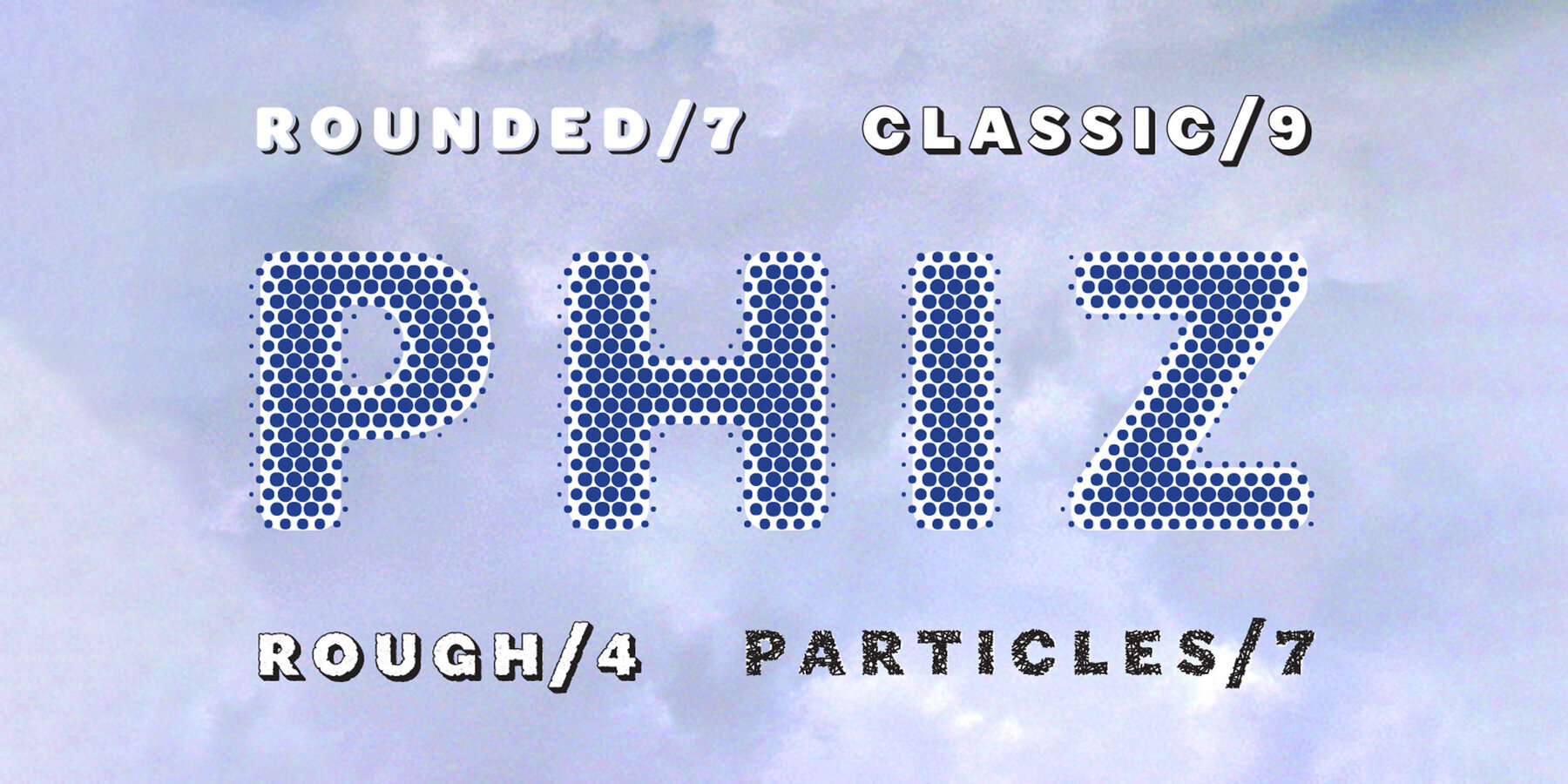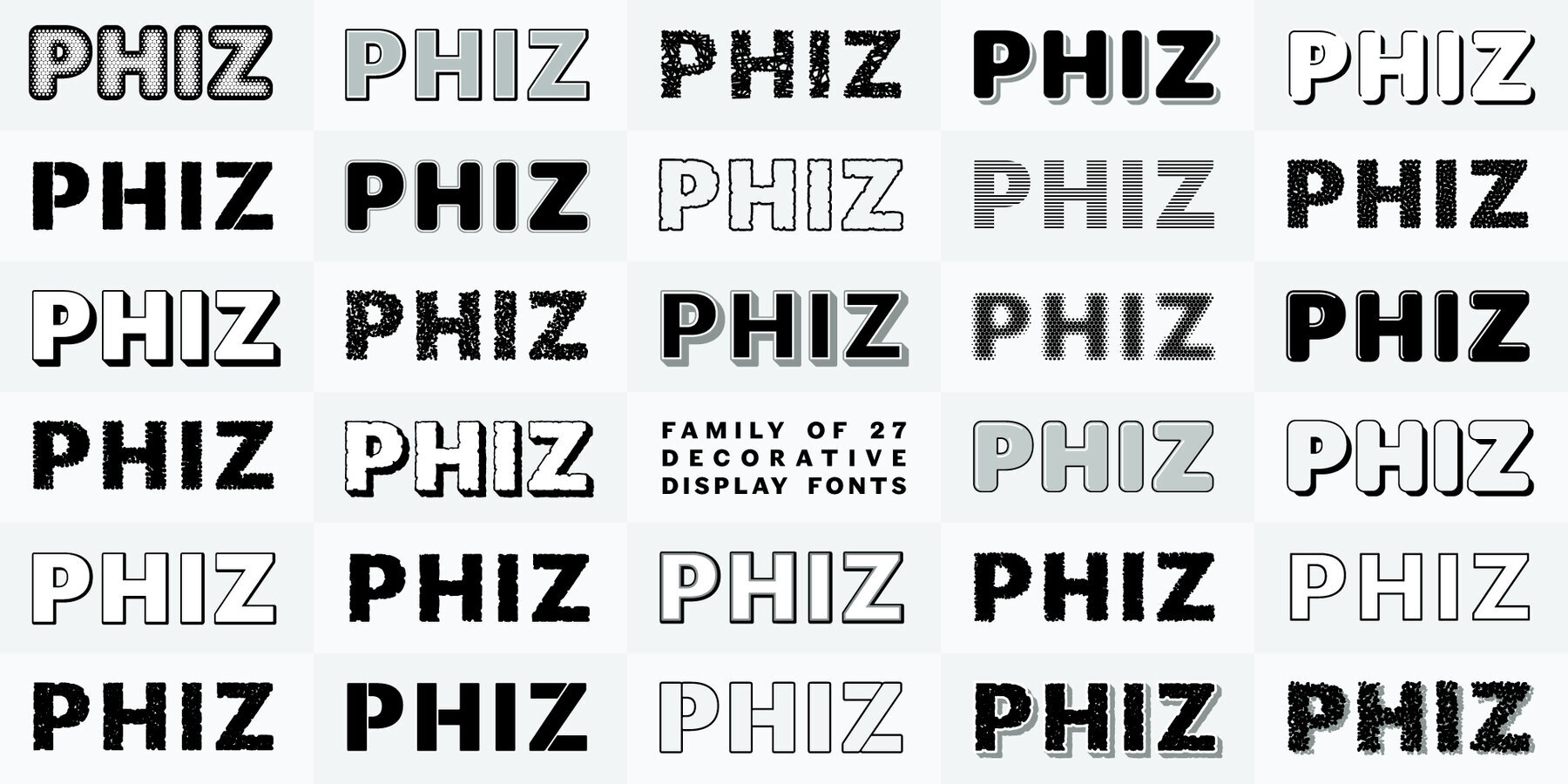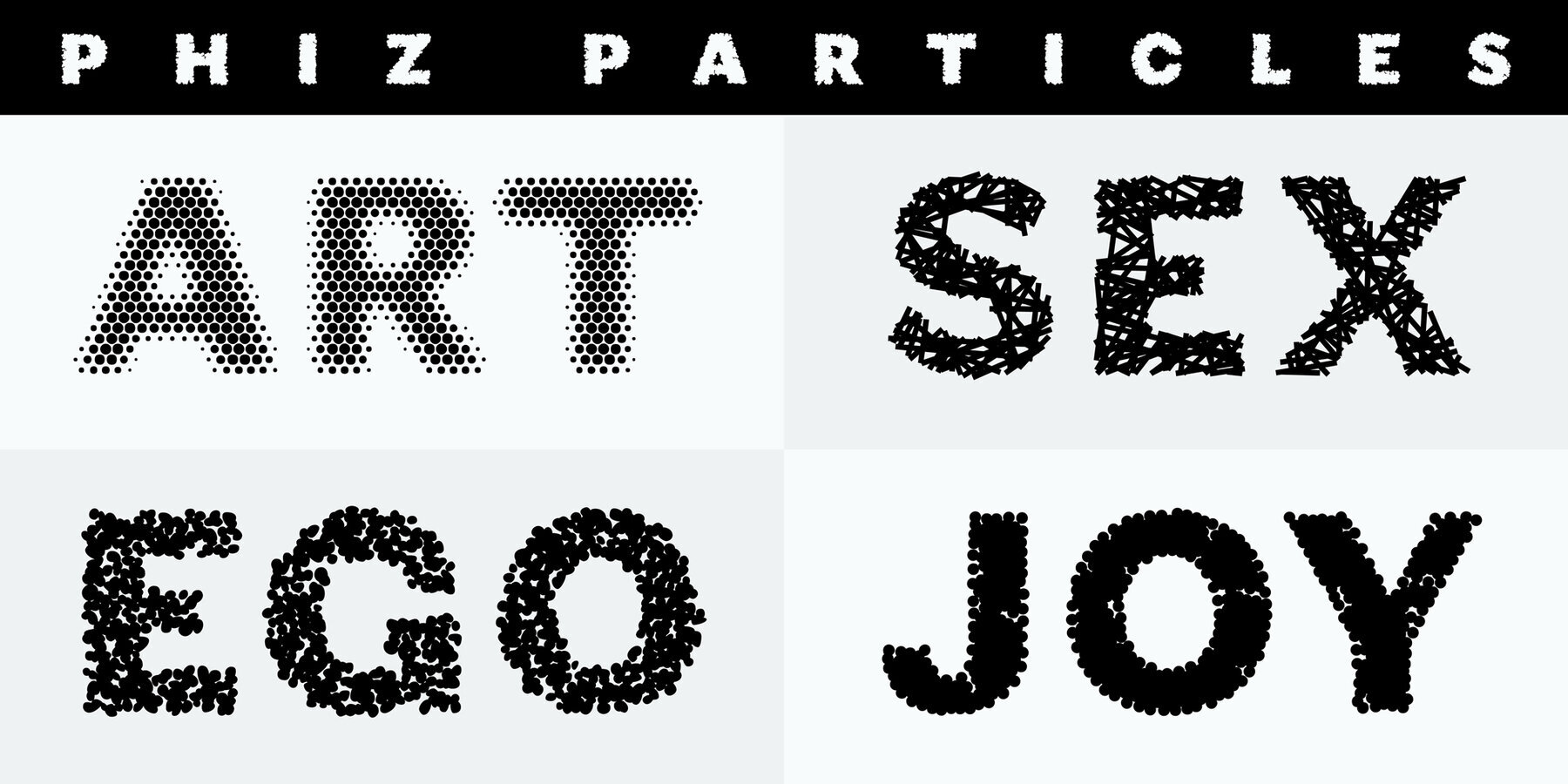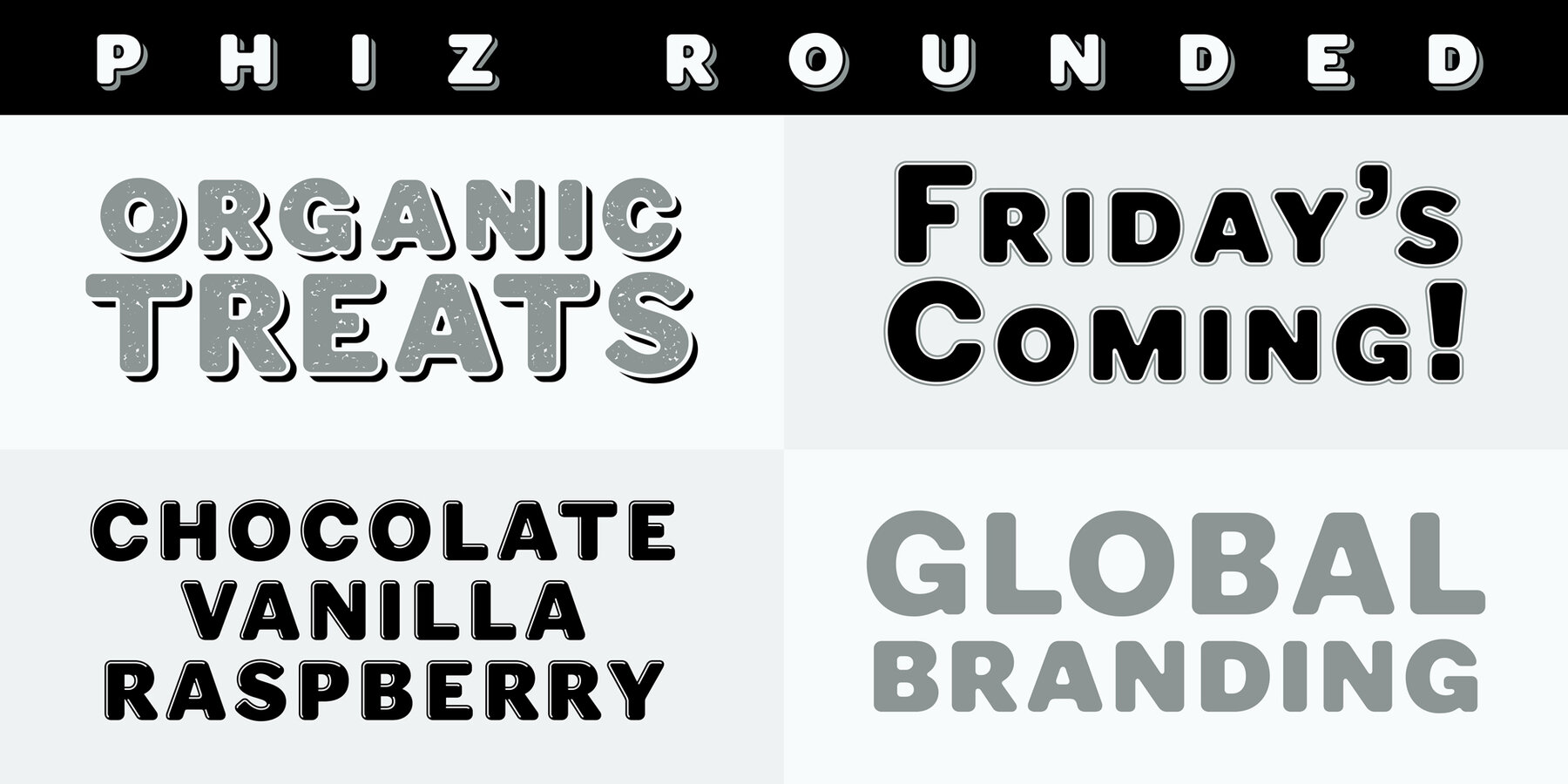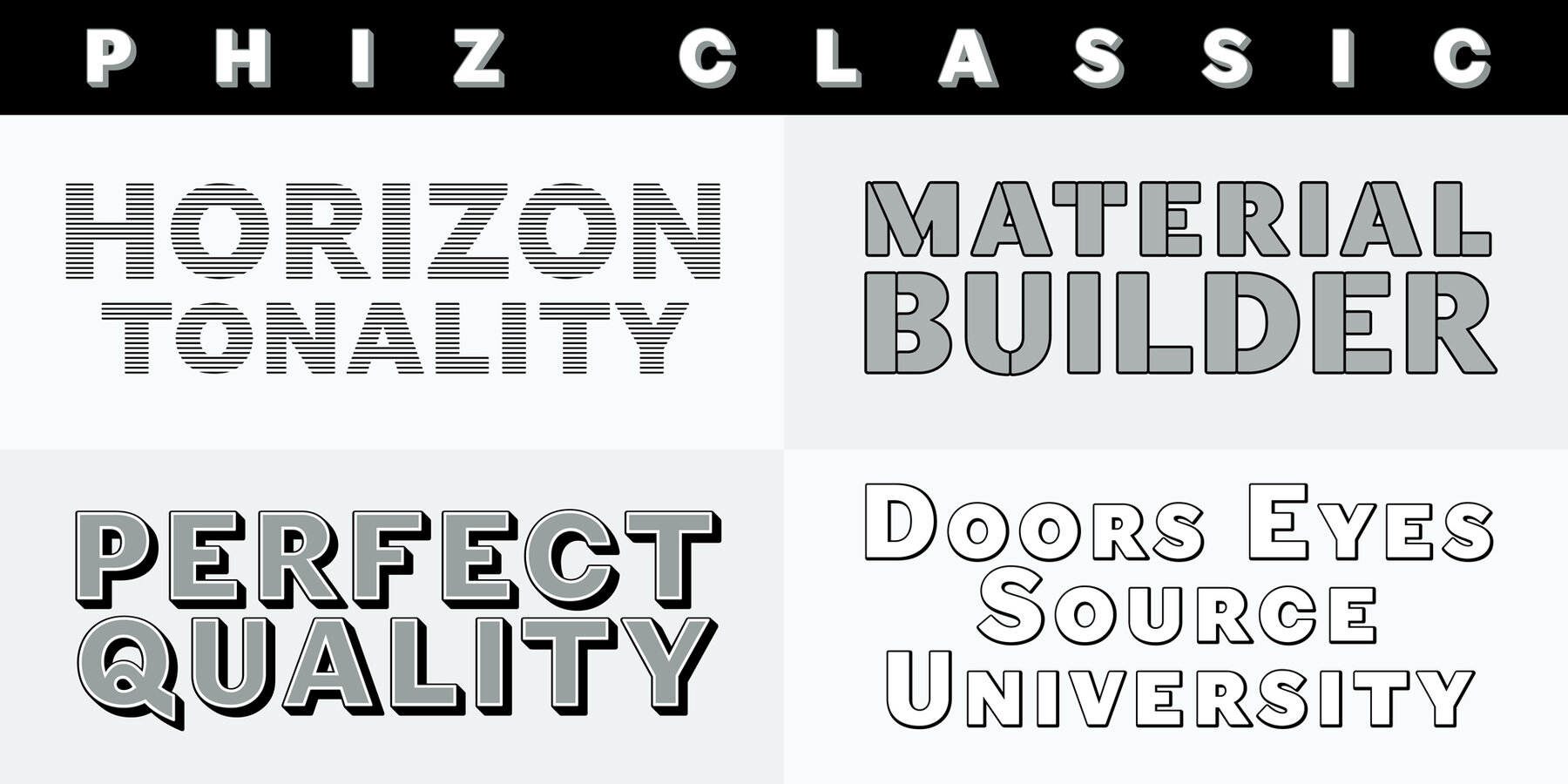
Phiz Font
Addressing the essence of decoration, Phiz demonstrates an eclectic diversity of possibilities, all applied to the same root style. This suite of variations contains four sub-families:
(1) the Classic styles of the early 19th century,
(2) the Rounded forms of the mid 20th century,
(3) the Rough patina of the 21st, and
(4) Particles: glyphs generated by a profusion of repetitive graphic elements, stochastically programmed to occupy character shapes.